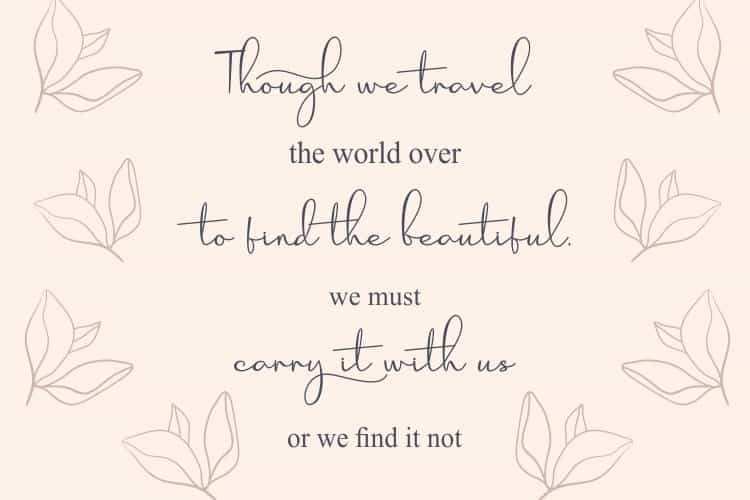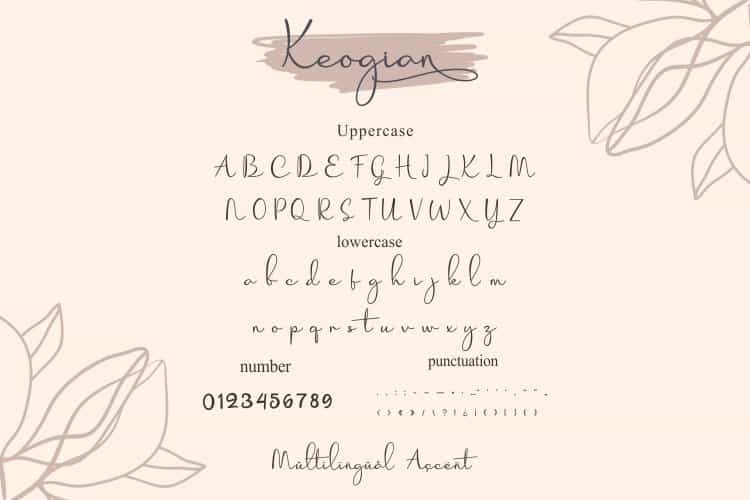
Korian is a modern font in handwritten style. This elegant font will surely add elegance into any designs that you may have! Korian can be applied for logos and branding, invitations and stationery, wedding designs and ads, social media posts, packaging designs, product label photos, watermarks, special occasion and etc.